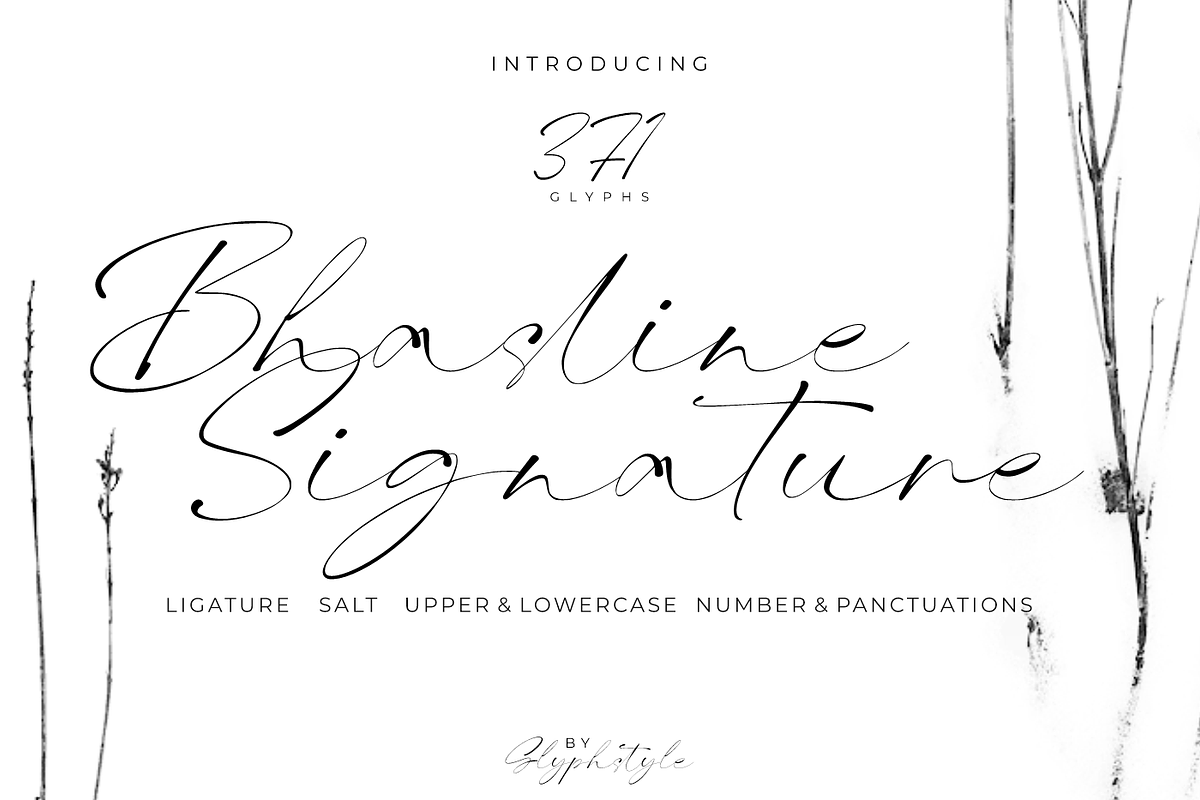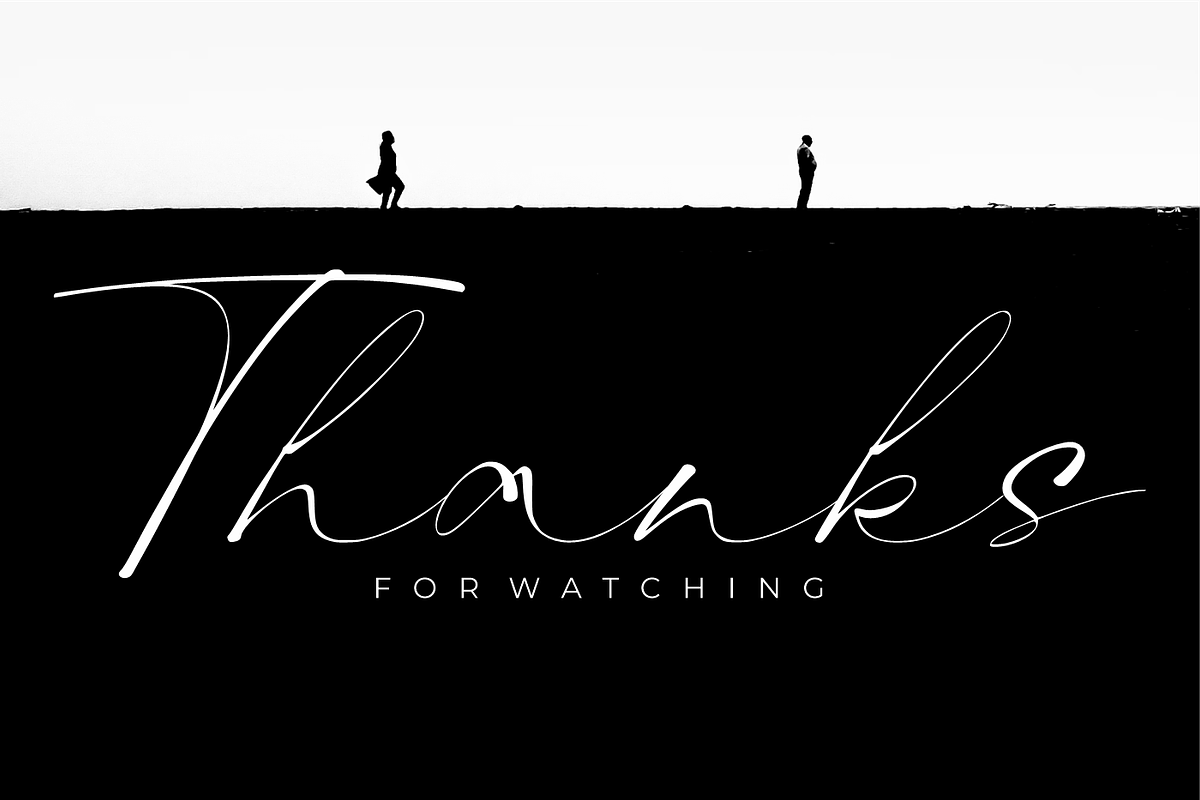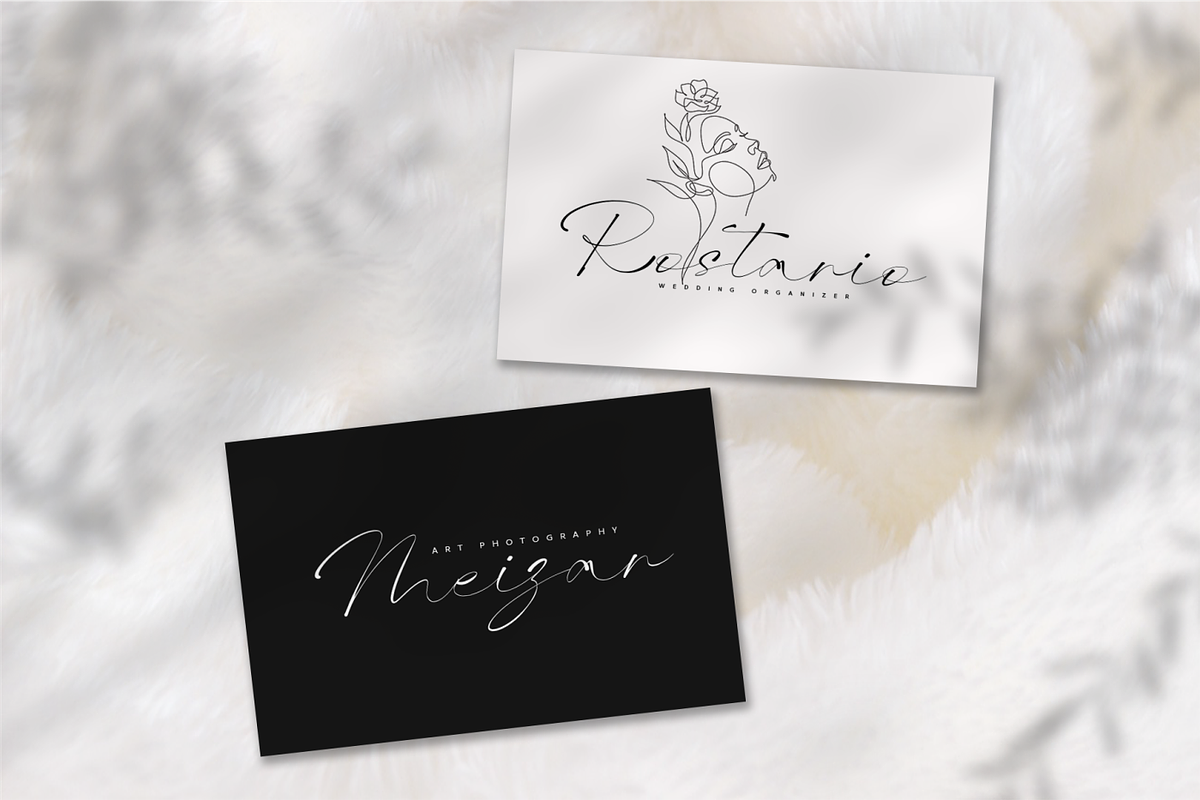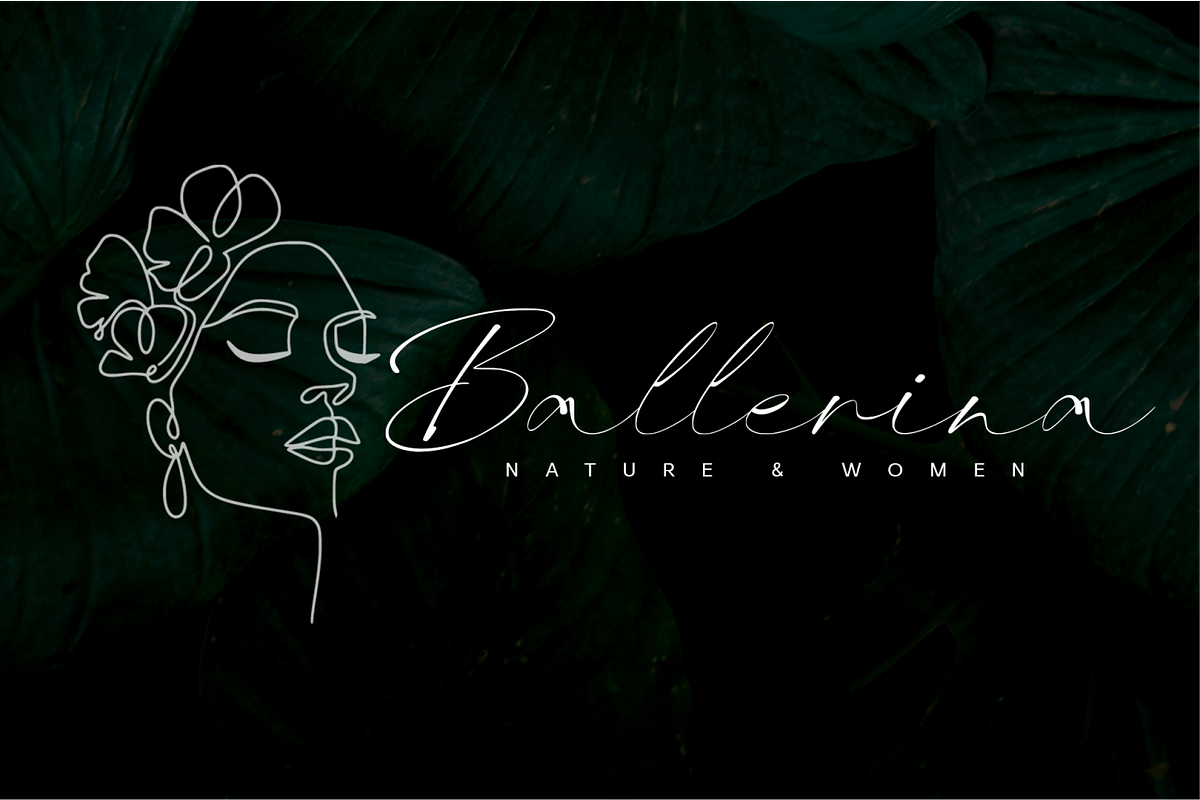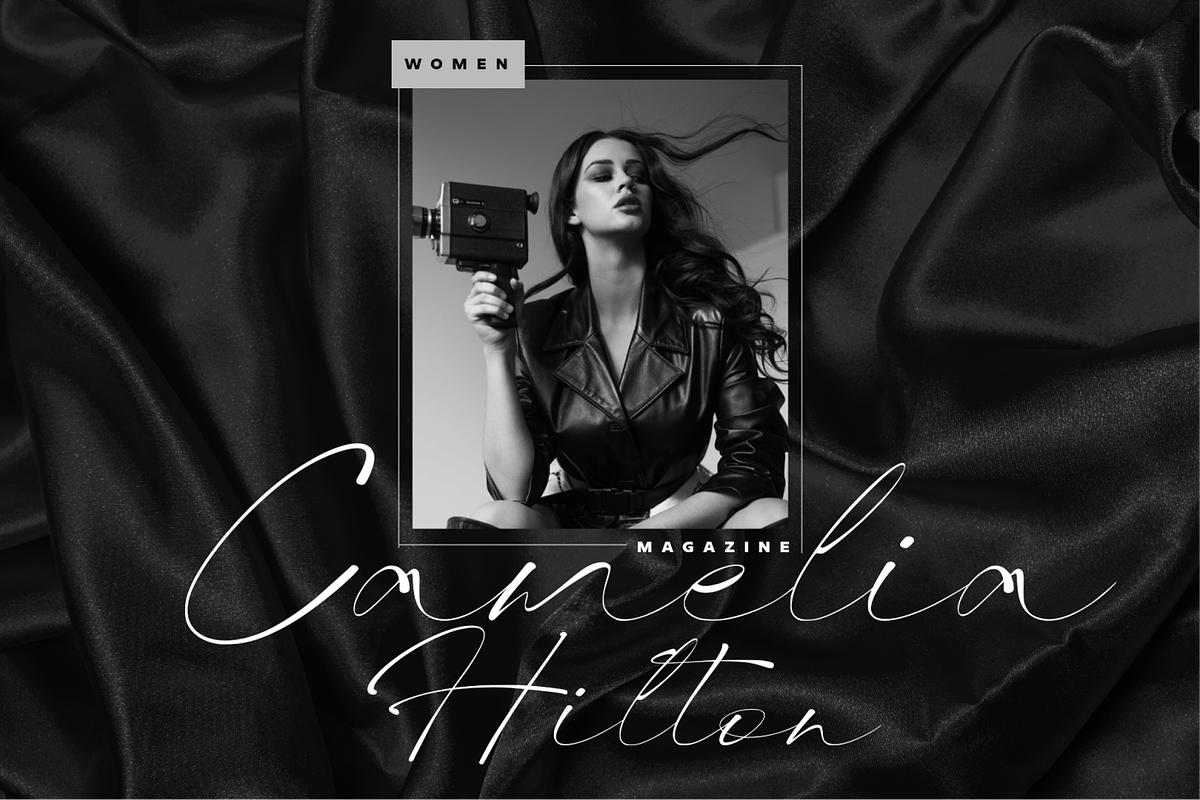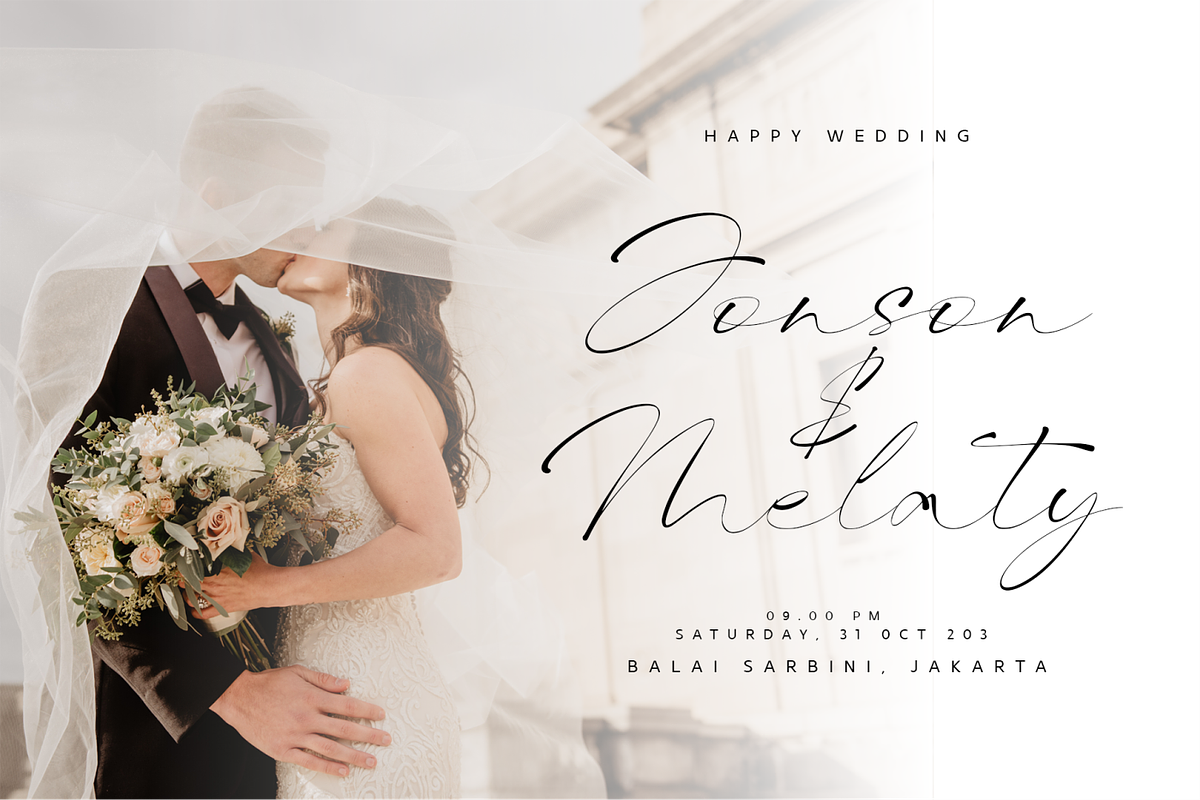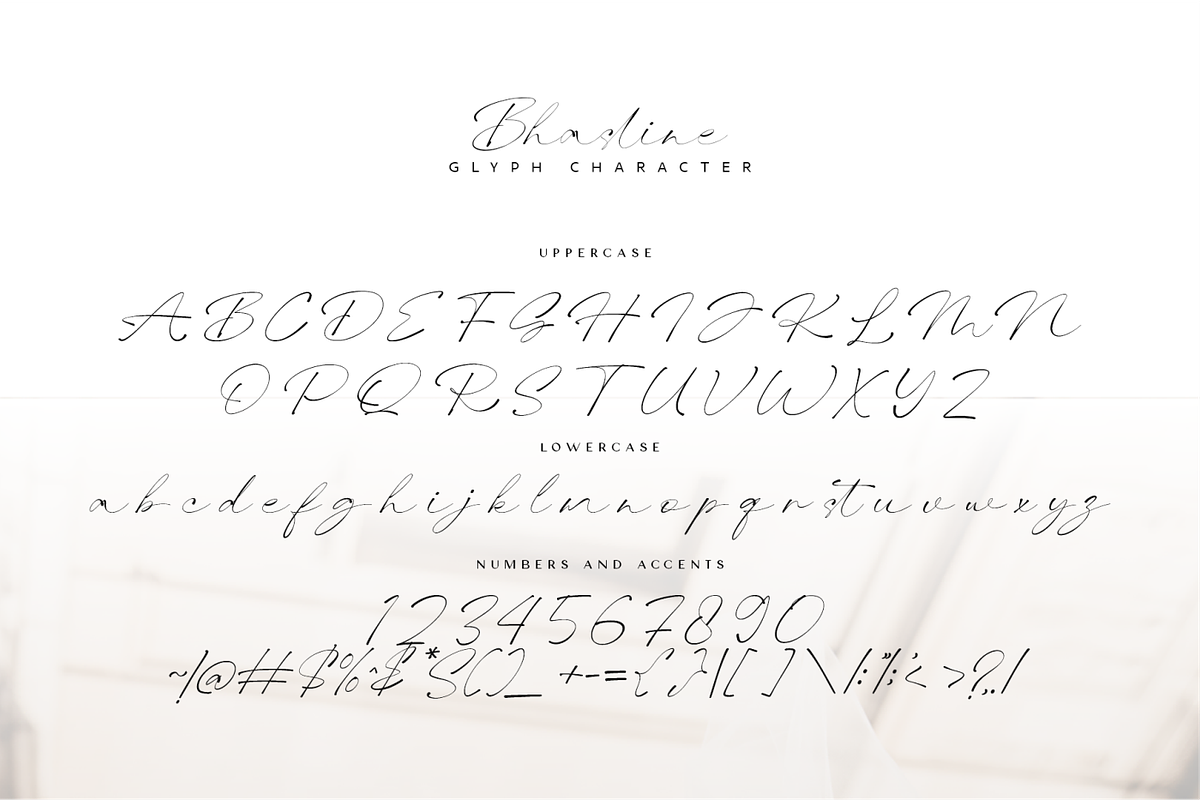
Bhasline Signature
Bhasline is a natural signature style font. looks like writing in ballpoint ink.
Bhasline is perfect for branding projects, logos, wedding designs, social media posts, advertisements, product packaging, product designs, labels, photography, watermarks, invitations, stationery and any project that requires a signature natural font.